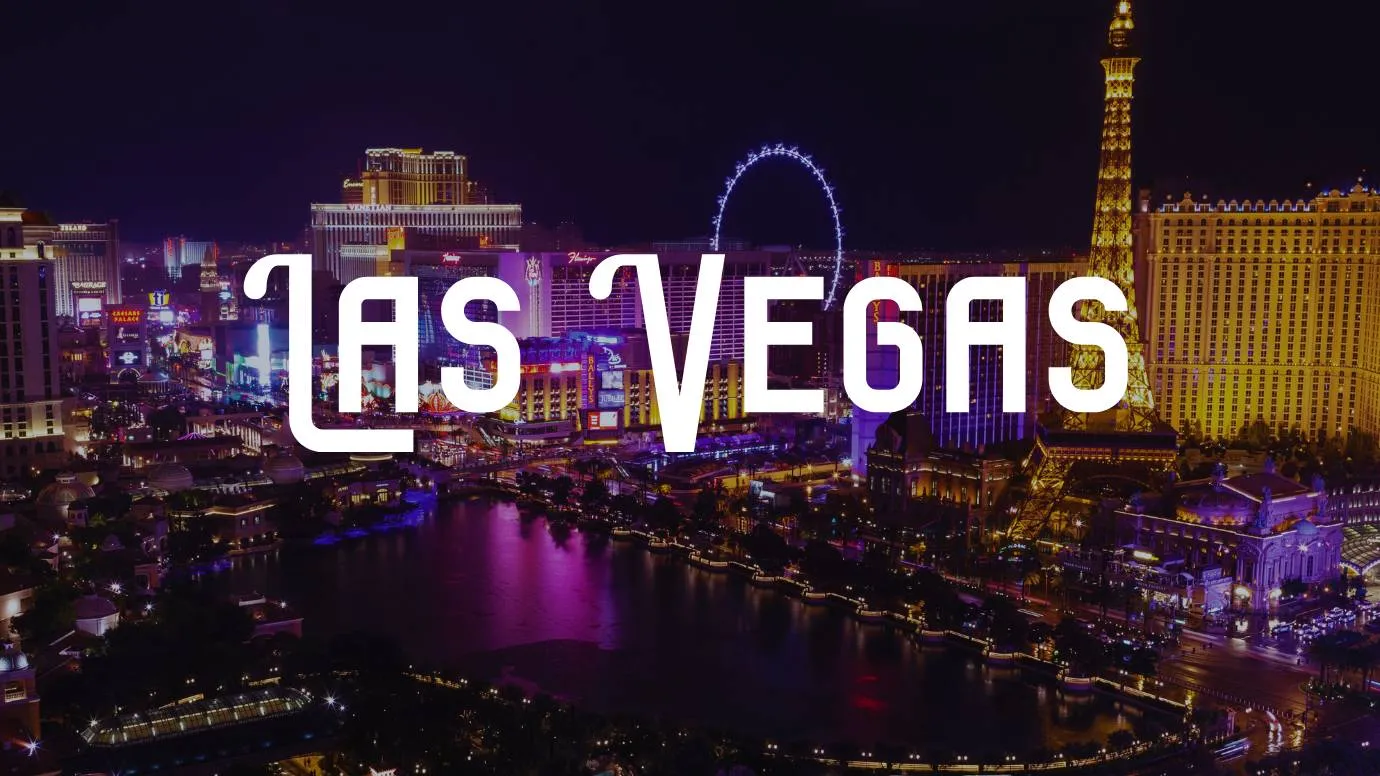
Las Vegas Font Family is an amazing fancy font that has a slightly bold character appearance. This font is designed by Letter Art Studios. The appearance of this font is very attractive neat and clean with high readability.
| Name | Las Vegas Font |
| Type | Fancy |
| Designer | Letter Art Studios |